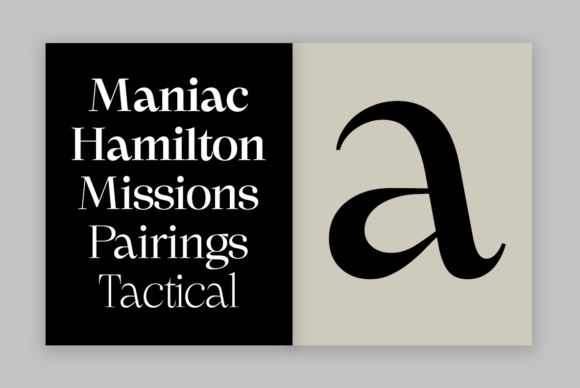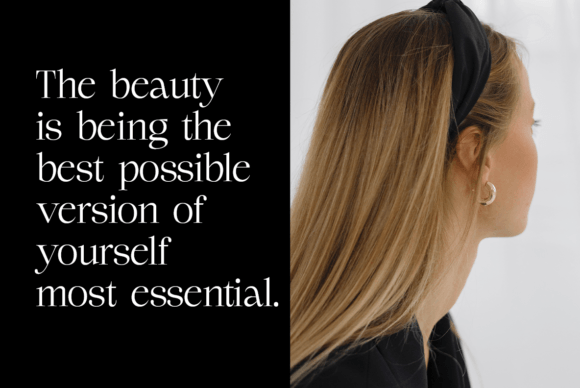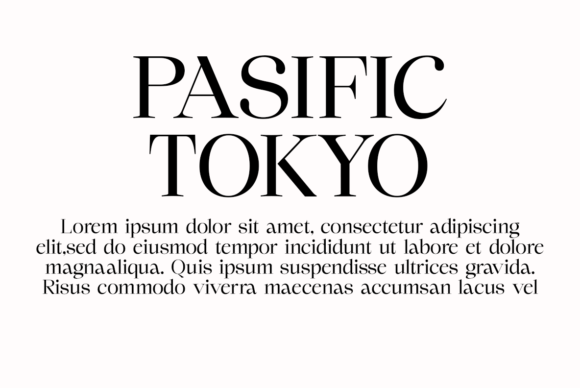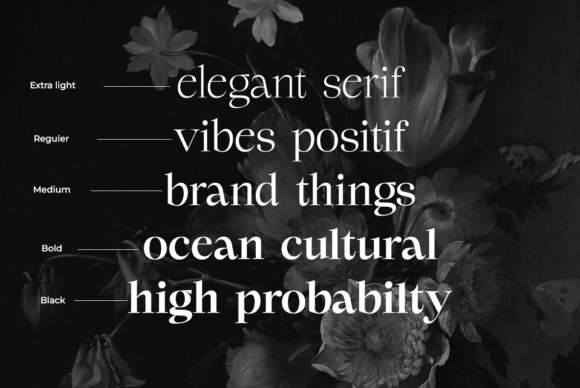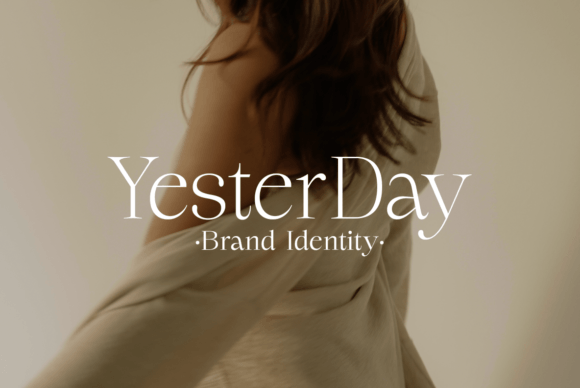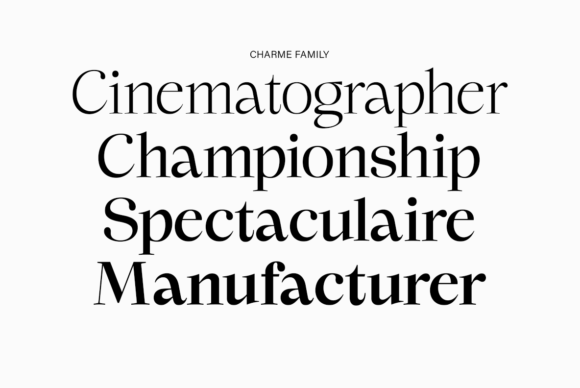
Introducing Charme Font: Timeless Elegance Meets Modern Flair
I’ll never forget the design moment that sparked the creation of Charme Font. I was working on a project for a luxury brand, tasked with crafting an elegant yet modern visual identity. As I scrolled through font libraries, I found myself torn between classic serif fonts that felt too traditional and trendy sans-serifs that lacked sophistication. That’s when I realized: there was a gap in the market for a font family that seamlessly blended timeless elegance with contemporary flair.
The Birth of Charme Font
With Charme Font, our goal was to craft a harmonious blend of classic aesthetics and modern style. Each meticulously crafted typeface embodies sophistication with a modern twist, exuding versatility and charm across every character. Perfectly balanced proportions and exquisite detailing ensure unparalleled readability and visual impact.
What I Love About Charme Font ✨
- ✅ Elegant yet modern design that’s perfect for luxury brands, weddings, and high-end events
- ✅ Wide range of OpenType features, glyphs, and stylistic alternates for added creativity
- ✅ Unparalleled readability, even at small font sizes
- ✅ Versatile and adaptable, suitable for both digital and print designs
Small Quirks and Limitations 🤔
- ⚠️ Some characters may require manual kerning for optimal spacing
- ⚠️ Limited support for non-Latin scripts (but we’re working on expansions!)
Our design team drew inspiration from the world of luxury and fine art. We wanted to create a font that would evoke the feeling of high-end jewelry, fashion, and design. With Charme Font, we aimed to distill the essence of sophistication and elegance into a versatile and modern typeface.
| Is Charme Font suitable for digital designs? | Absolutely! Charme Font is optimized for both print and digital designs, with features like hinting and clear rendering at small sizes. |